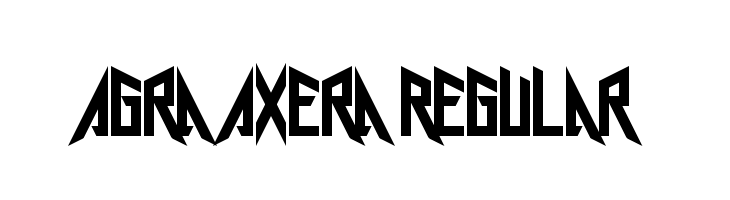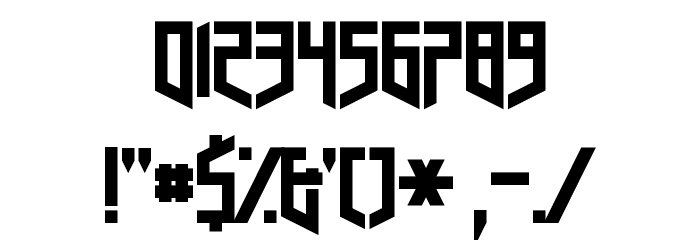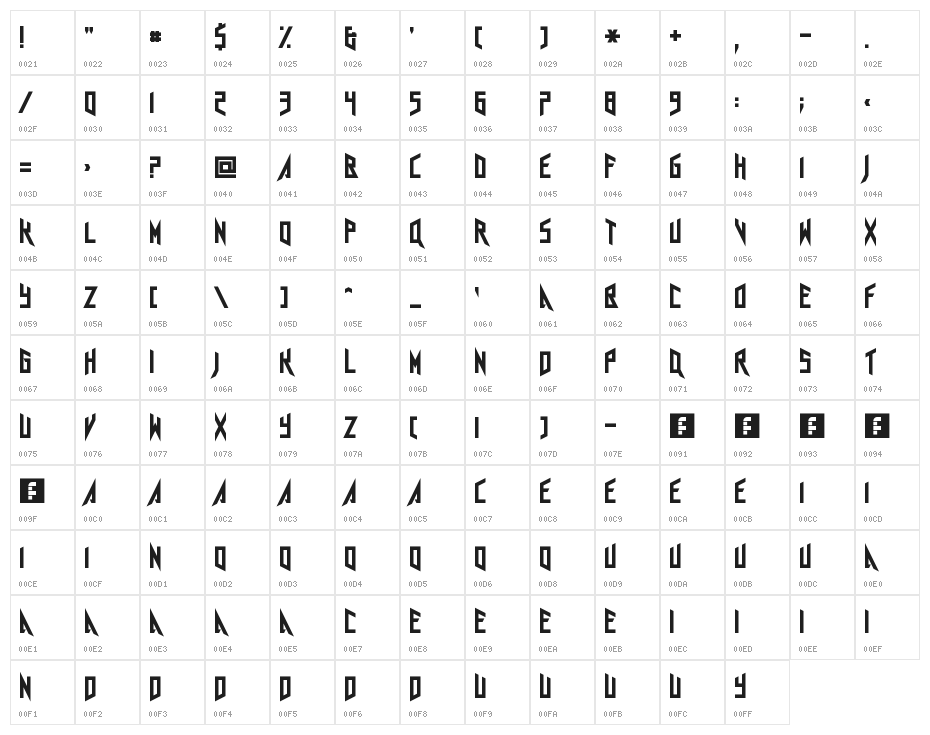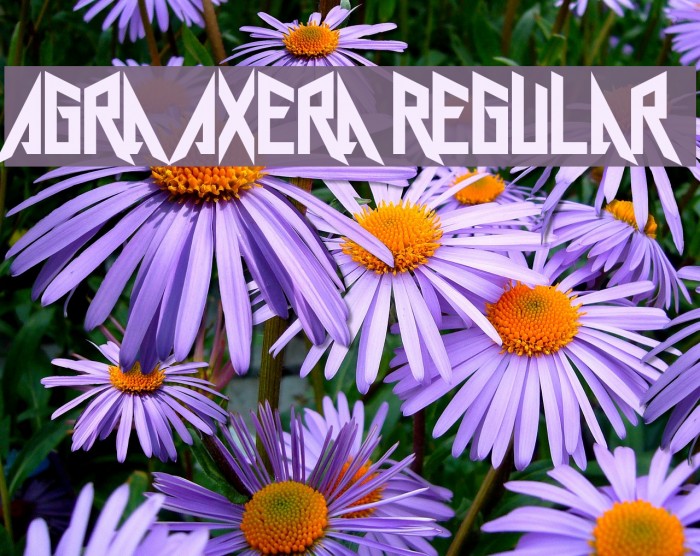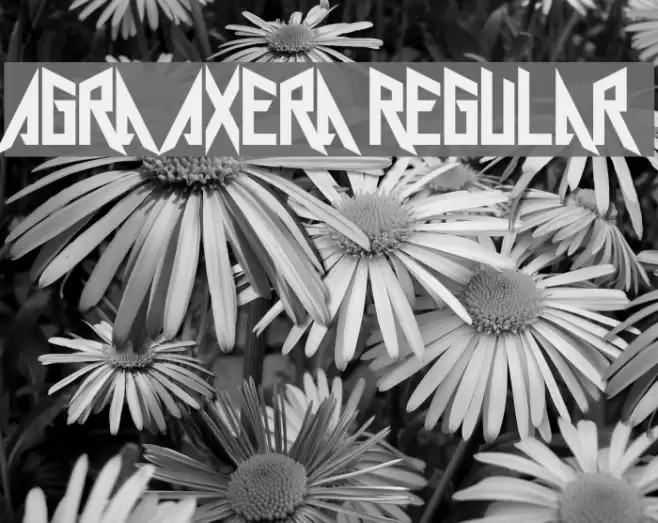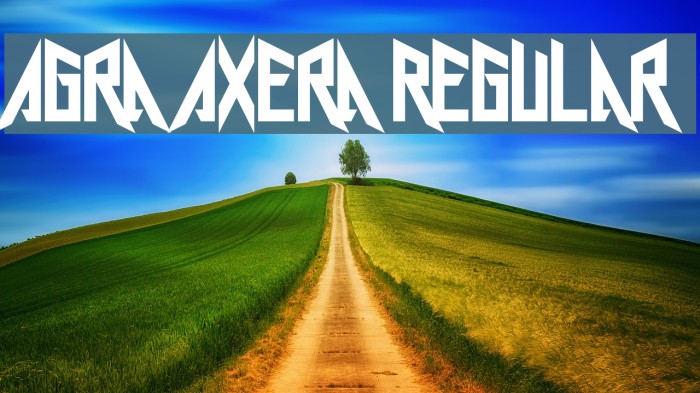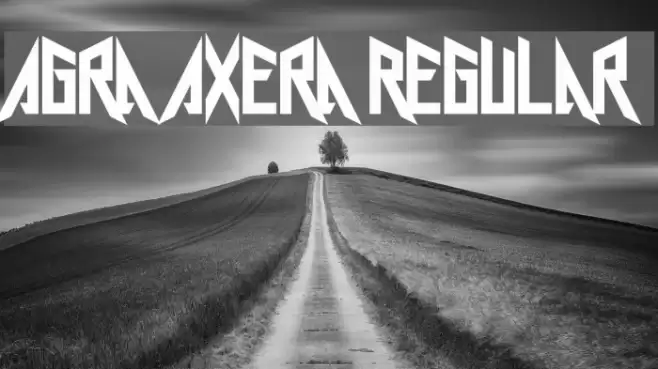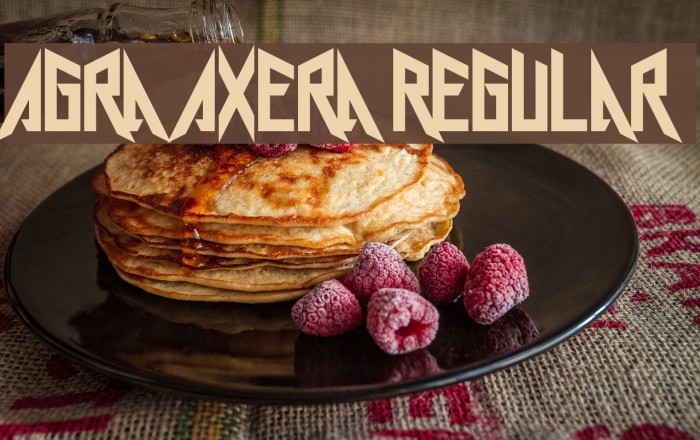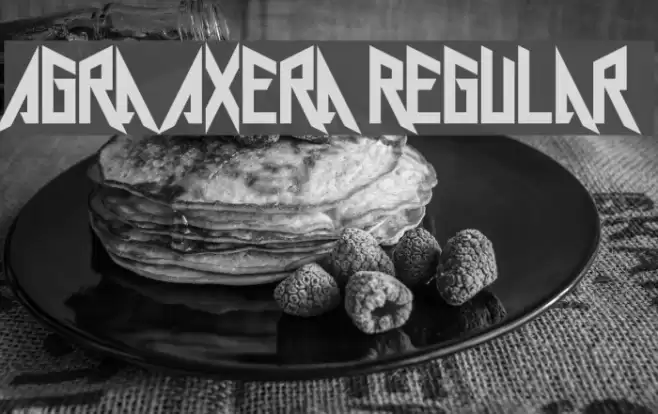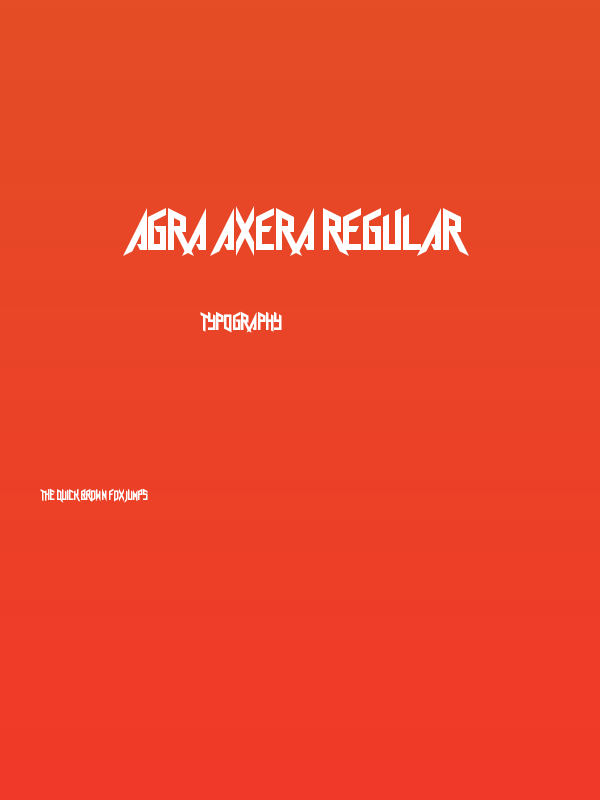
Agra Axera Regular Font
Agra Axera Regular Description
This font features a bold, geometric design with sharp angles and a futuristic aesthetic. The characters are constructed with thick lines and pointed edges, giving it a dynamic and aggressive appearance. The uppercase letters are particularly striking, with a uniform height and a consistent angular style that creates a cohesive look. The numerals and special characters maintain this bold, angular theme, ensuring a harmonious overall design. This font is highly decorative and makes a strong visual impact, suitable for projects that require a modern and edgy feel.
| Proposed Projects | Ideal for branding, posters, video game graphics, and any project requiring a modern, edgy look. |